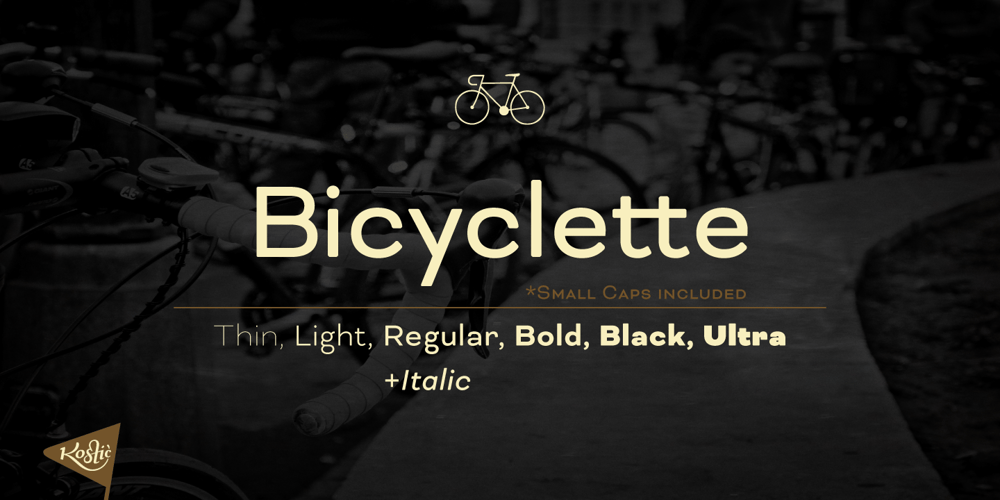
Bicyclette
Bicyclette font
Bicyclette Font Family was designed by Nikola Kostić and published by Kostic. Bicyclette contains 7 styles and family package options. The name “Bicyclette” was chosen because this typeface is all about balance and elegance. The idea was to create a highly contrasted sans-serif family carefully balanced between gentle curves and sharp angles, with large capitals opposing uncommonly short lower case, through six distinctive weights. The letters are wide, and the capitals pop up in headlines while the lower case leaves a lot of white space between the text lines because of its small x-height. The edges are rounded (but not so much for the family to be called rounded), just enough to make the text feel slightly softer, gentler, while retaining some of that technical sans sharpness. The Bicyclette character set supports Western and Central European languages, and includes an extended set of monetary symbols. Each weight includes small caps, ligatures, proportional lining and oldstyle numbers, tabular figures, fractions and scientific superior/inferior figures.